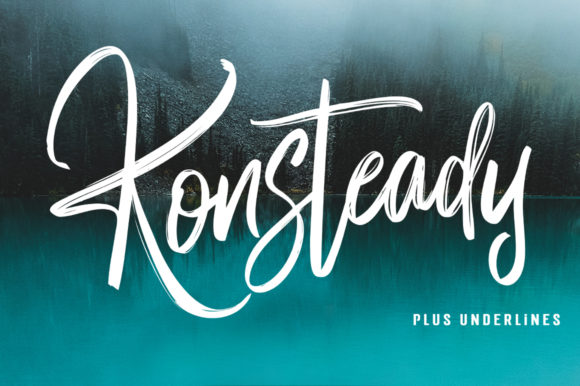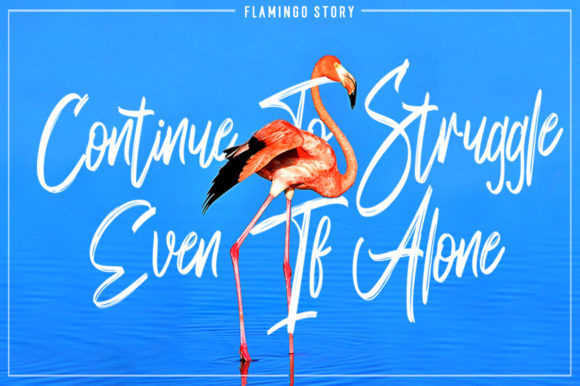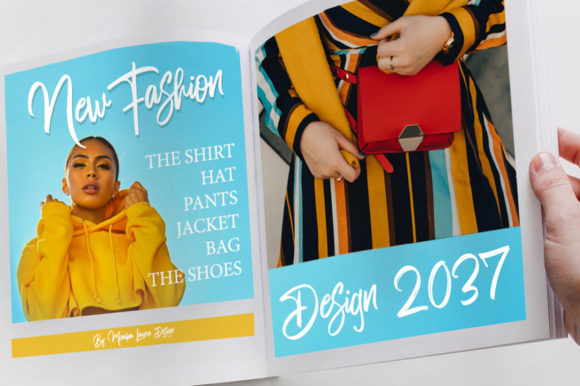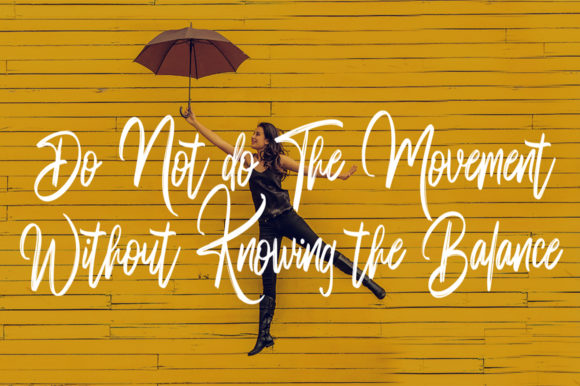
Konsteady Font
About Konsteady Font
Konsteady is a modern script font, carefully handcrafted to become a true favorite. This elegant font will look outstanding in any context, whether it’s being used on busy backgrounds or as a standalone headline!